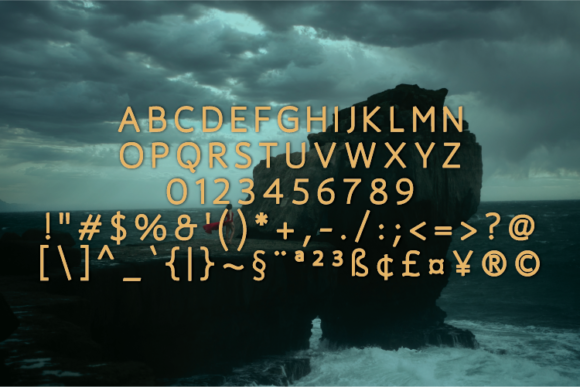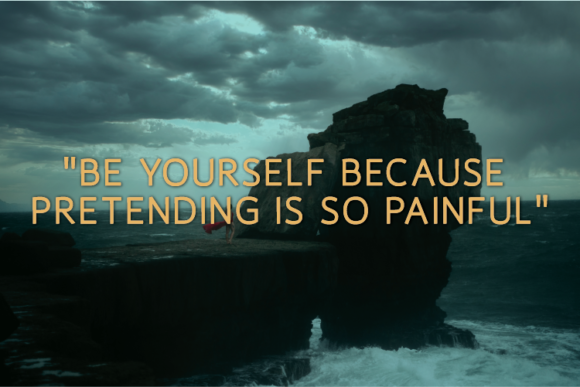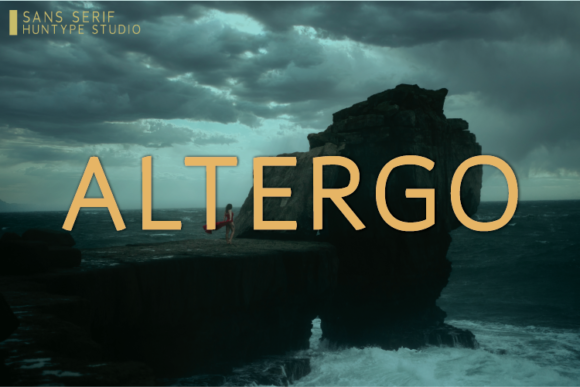
Discover the Versatility of Altergo Font: A Modern Sans Serif Marvel
In the world of typography, fonts play a crucial role in shaping the visual identity of a brand, product, or creative project. With countless options available, finding the perfect font can be overwhelming. However, if you’re looking for a modern, clean, and versatile sans serif font, look no further than Altergo. In this article, we’ll explore the features, benefits, and uses of Altergo Font, making it a must-know for designers, crafters, and anyone seeking a stylish typographic solution.
What is Altergo Font?
Altergo is a contemporary sans serif font designed to be adaptable and visually appealing in various contexts. Its smooth, clean lines, and subtle contrast make it an excellent choice for a wide range of applications, from logos and branding to web headings and more. The font’s sleek design ensures that it remains legible and stylish, whether used in digital or print formats.
Key Features of Altergo Font
- Modern and Clean Design: Altergo boasts a fresh, modern aesthetic with clean lines that exude simplicity and sophistication.
- Sans Serif Style: The font’s sans serif style ensures that it remains highly legible, even at smaller sizes, making it perfect for body text and captions.
- Versatility: Altergo’s neutral design allows it to be used in a variety of contexts, from corporate branding to creative projects.
- Smooth Lines and Subtle Contrast: The font’s smooth lines and touch of contrast add depth and visual interest, elevating it from a simple sans serif font to a stylish typographic solution.
Uses of Altergo Font
Altergo’s versatility makes it suitable for a wide range of applications, including:
- Logos and Branding: Create a lasting impression with a custom logo or brand identity that showcases Altergo’s modern, clean aesthetic.
- Web Headings: Use Altergo to create visually appealing headings and titles for your website, blog, or online portfolio.
- Print Materials: From brochures and flyers to business cards and posters, Altergo is an excellent choice for any print project requiring a clean, modern font.
- Packaging and Product Design: Add a touch of sophistication to your product packaging with Altergo’s stylish, contemporary design.
Benefits of Using Altergo Font
By incorporating Altergo into your design projects, you can benefit from:
- Enhanced Visual Appeal: Altergo’s modern design and smooth lines instantly elevate the visual appeal of your project.
- Improved Legibility: The font’s clean design and subtle contrast ensure that your text remains easy to read, even at smaller sizes.
- Flexibility: Altergo’s versatility allows you to use it across various platforms and applications, from digital to print.
In conclusion, Altergo Font is a modern, clean, and versatile sans serif font that is perfect for designers, crafters, and anyone seeking a stylish typographic solution. Its smooth lines, subtle contrast, and adaptability make it suitable for a wide range of applications, from logos and branding to web headings and print materials. By incorporating Altergo into your design projects, you can enhance visual appeal, improve legibility, and save time. Whether you’re working on a creative project or building a brand identity, Altergo is an excellent choice that is sure to impress.